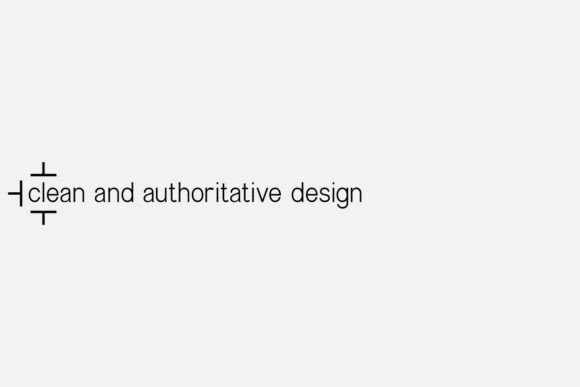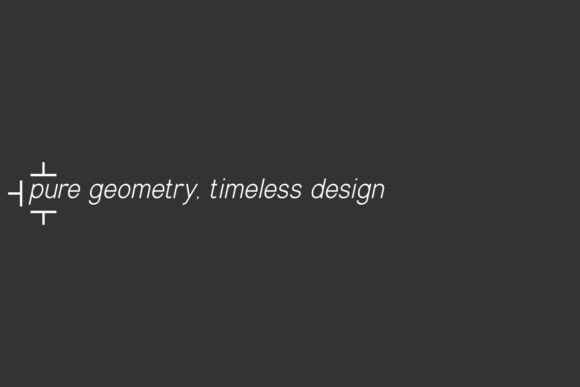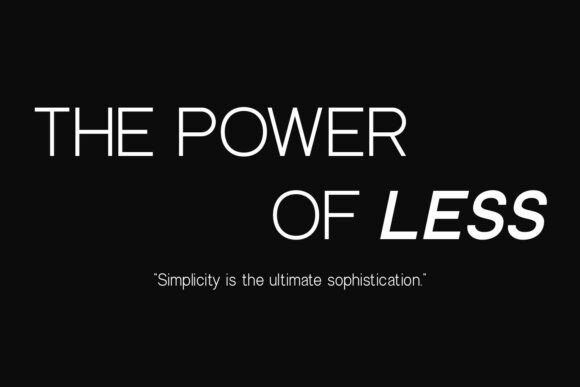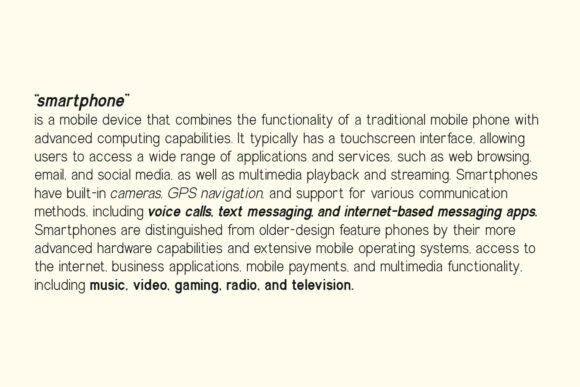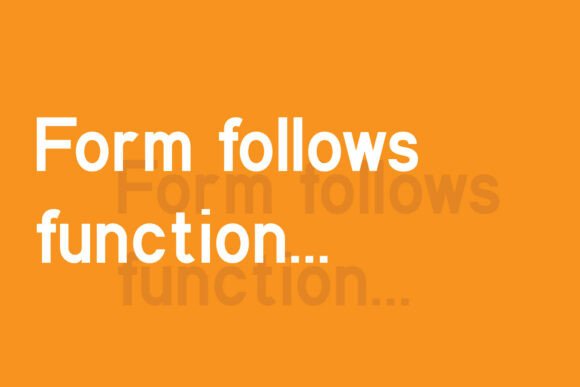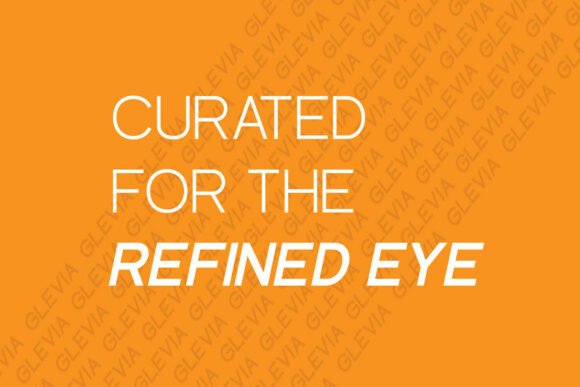
Glevia Sans Font: The Ultimate Choice for Modern Designers
In the world of typography, a good font can make all the difference in the success of a design project. With the ever-evolving landscape of digital interfaces and print layouts, designers are constantly on the lookout for fonts that can deliver clarity, precision, and professionalism. This is where Glevia Sans Font comes in – a modern, functional sans-serif family engineered for high-performance legibility.
The Birth of Glevia: A Workhorse Sans-Serif Family
Glevia is designed to forge a path of clarity and precision in the world of typography. Its creators aimed to craft a font that would excel in both digital and print environments, providing a clean and professional aesthetic that functions flawlessly across various platforms. With its balanced proportions and specialized ligatures, Glevia has become a go-to choice for designers seeking a reliable and versatile font.
Key Features of Glevia Sans Font
- High-performance legibility: Glevia’s design prioritizes readability, making it perfect for long-form editorial body text, UI/UX design, and corporate identity.
- Balanced proportions: The font’s carefully crafted proportions ensure a harmonious and clean appearance, even at small font sizes.
- Specialized ligatures: Glevia’s ligatures add a touch of sophistication and elegance, making it suitable for high-end branding and editorial projects.
- Cross-platform compatibility: Glevia performs flawlessly across both high-resolution digital interfaces and print layouts, making it a versatile choice for designers.
Best Use Cases for Glevia Sans Font
Glevia’s versatility makes it an excellent choice for a wide range of design applications. Here are some of the best use cases for Glevia Sans Font:
- Tech branding: Glevia’s modern and professional aesthetic makes it an excellent choice for tech companies looking to establish a strong brand identity.
- Corporate identity: The font’s clean and sophisticated appearance makes it perfect for corporate branding, logos, and marketing materials.
- UI/UX design: Glevia’s high-performance legibility and balanced proportions make it an excellent choice for user interface and user experience design.
- Long-form editorial body text: Glevia’s readability and comfort make it perfect for lengthy articles, blog posts, and publications.
Why Designers Love Glevia Sans Font
Designers and crafters love Glevia Sans Font for its exceptional performance, versatility, and aesthetic appeal. Here are some reasons why:
- Exceptional legibility: Glevia’s high-performance legibility makes it easy to read, even at small font sizes.
- Flexibility: The font’s cross-platform compatibility and versatility make it suitable for a wide range of design applications.
- Professional aesthetic: Glevia’s clean and sophisticated appearance makes it perfect for high-end branding and editorial projects.
- Constantly evolving: The creators of Glevia are committed to updating and improving the font, ensuring it stays relevant and effective in the ever-changing world of design.
In conclusion, Glevia Sans Font is a modern, functional sans-serif family that has become a staple in the world of typography. Its exceptional legibility, balanced proportions, and specialized ligatures make it an excellent choice for designers seeking a reliable and versatile font. Whether you’re working on tech branding, corporate identity, UI/UX design, or long-form editorial body text, Glevia is the perfect choice for forging a path of clarity and precision in your design projects.